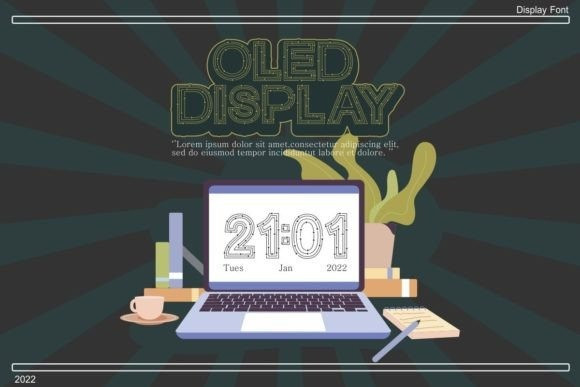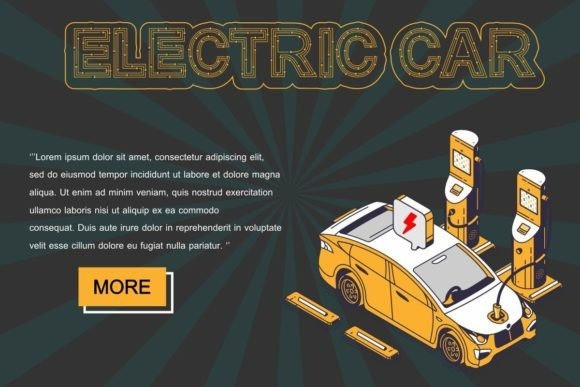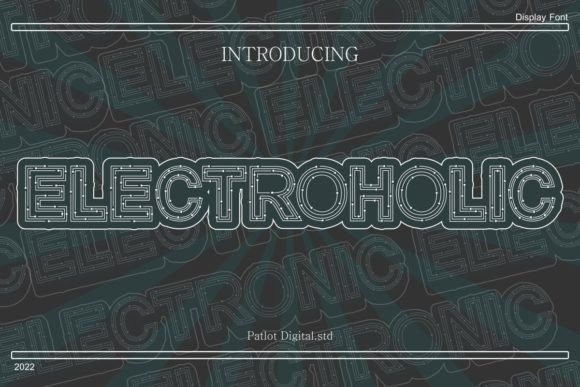
Electroholic Font
Electroholic Font is a cool and unique display font inspired by authentic electronic lines. Add this font to your creative ideas and you will be amazed by the generated outcome.